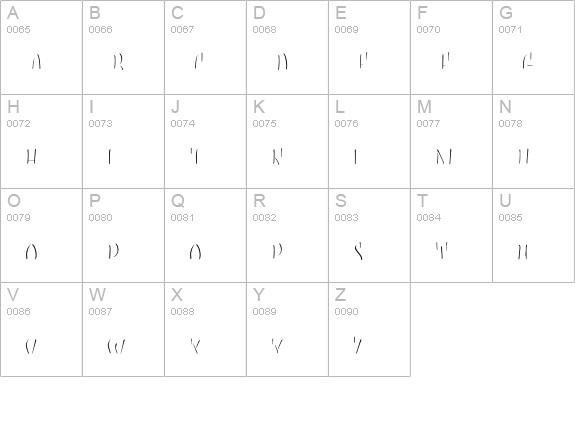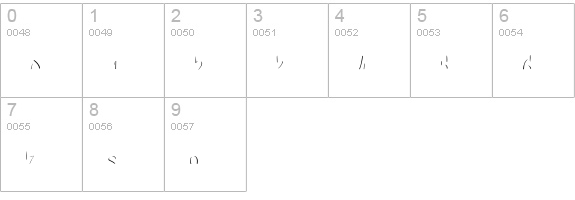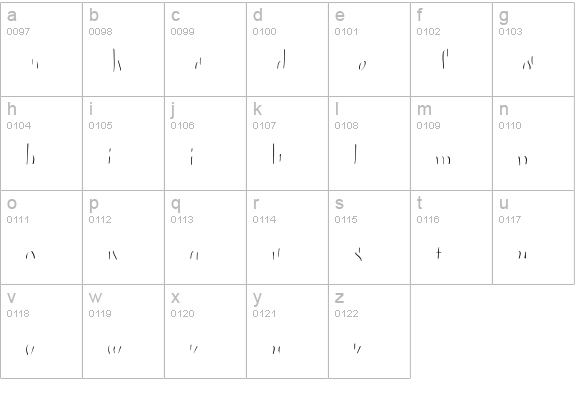
SudegnakNo3c Font Details
Introducing SudegnakNo3c, a captivating and versatile font that effortlessly combines elegance with a touch of modernity. This font is designed to make a lasting impression, whether used for headlines, logos, invitations, or any creative project that demands attention. With its unique and intricate letterforms, SudegnakNo3c adds a sense of sophistication to any design. The carefully crafted curves and sharp edges create a harmonious balance that is pleasing to the eye. Each character is meticulously designed to ensure legibility and readability, even at smaller sizes. But what truly sets SudegnakNo3c apart is its versatility. It effortlessly adapts to various design styles, from classic to contemporary, making it the perfect choice for a wide range of projects. Whether you're working on a high-end fashion brand or a modern tech startup, this font will elevate your design and convey a sense of professionalism. And the best part? SudegnakNo3c is available for free! That's right, you can download this exceptional font at FontsMarket.com without spending a dime. Don't miss the opportunity to enhance your creative work with this stunning typeface that can truly transform any design.